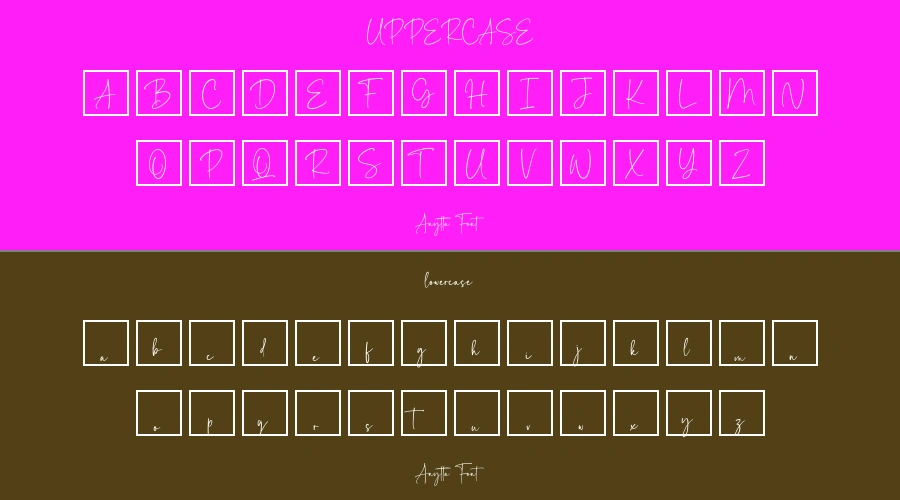
About Anytta Font
Anytta Font represents a sophisticated approach to type design, balancing engineered curves with precision. Perfect for magazine layout, this font family showcases impressive longevity and cultural relevance throughout its character set. Designers appreciate its versatility and reliability.
Designers will appreciate nuanced touches including distinctive terminals and careful spacing, adding sophistication to any project. These features become apparent in compliance materials, where large format rendering matters most. The careful treatment of counter shape and research value ensures optimal performance.